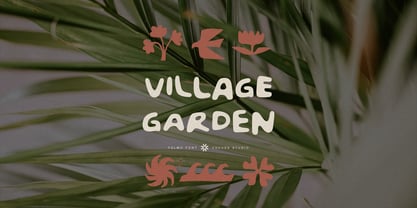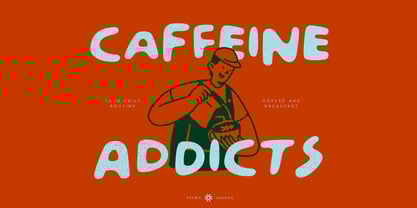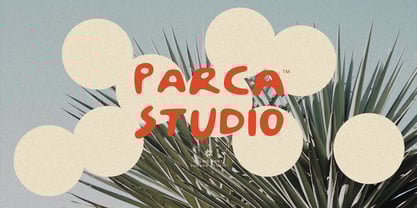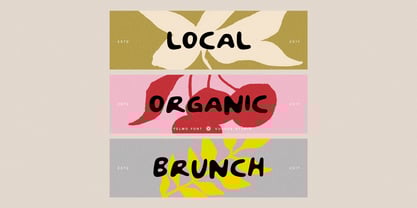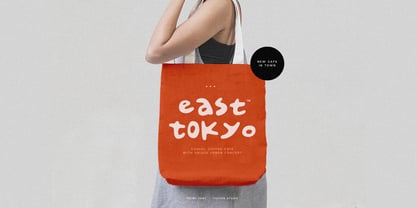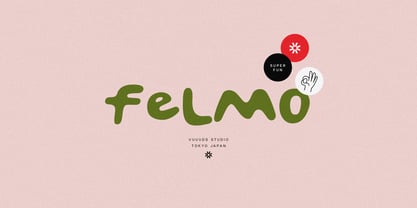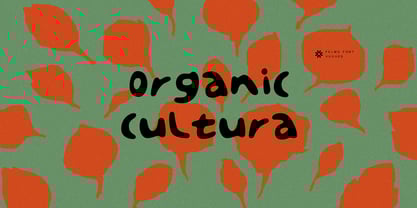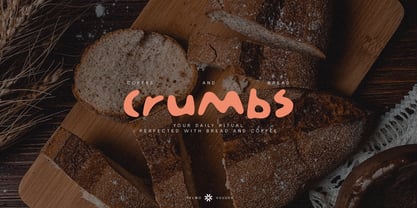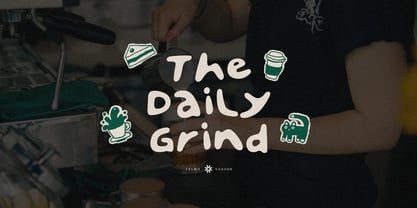
Felmo
by vuuuds
The Felmo Font Family was designed by Agung Syaifudin and published by vuuuds. Felmo contains 1 styles. More about this family
Introducing Felmo Font!
Felmo is fun casual fat rounded font, every single letters have been uniquely crafted.